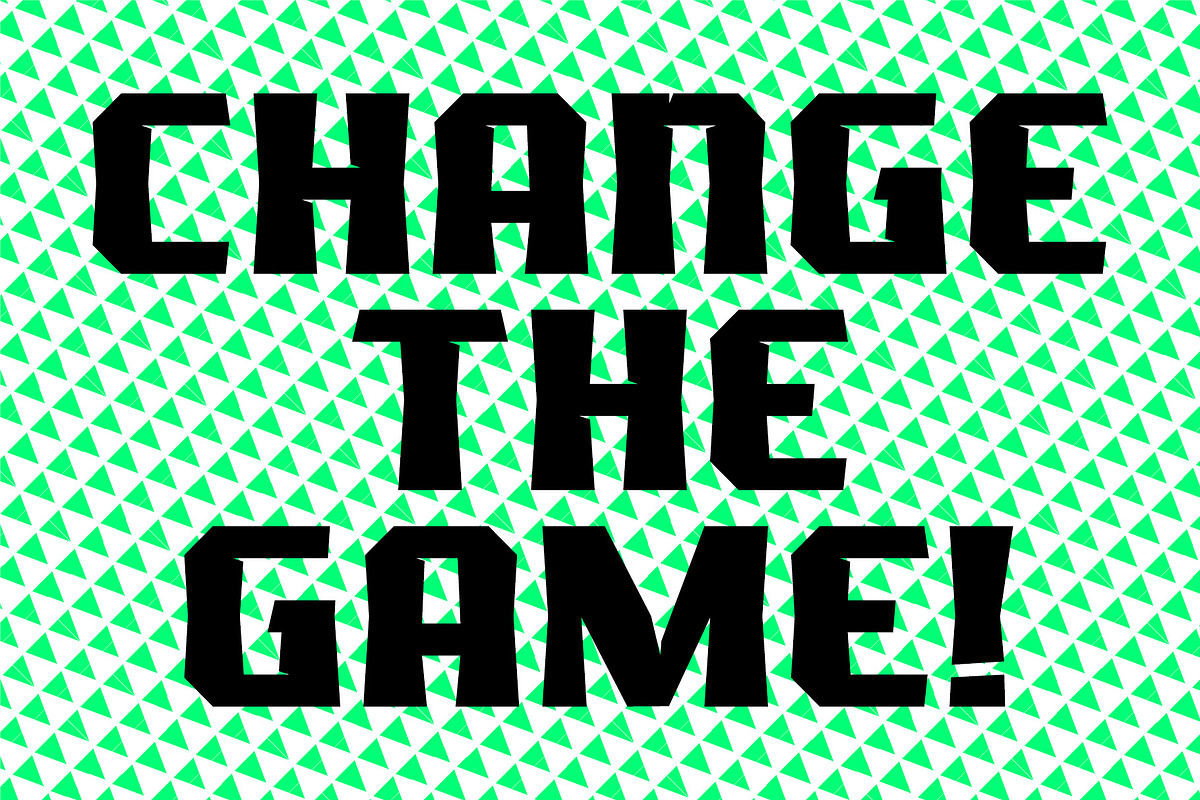
HYDJAKIDS Display Type
HYDJAKIDS (think, "hide yo kids") is a typeface that was developed out of appreciation and love of sports ad campaigns that you'd see from Nike, Adidas or Under Armour.
Definitely make HYDJAKIDS large in your projects for apparel, entertainment, magazine, product packaging, branding, sports design, etc. With the new alternate glyphs you can switch the vibe up a tiny bit and inject new life into your piece.
NEW Features Include
- 2 styles (regular & italic)
- Opentype Features: alternate glyphs in uppercase, lowercase, and even numbers
- Diacritics (In case you need to throw down some Spanish/French, etc.)